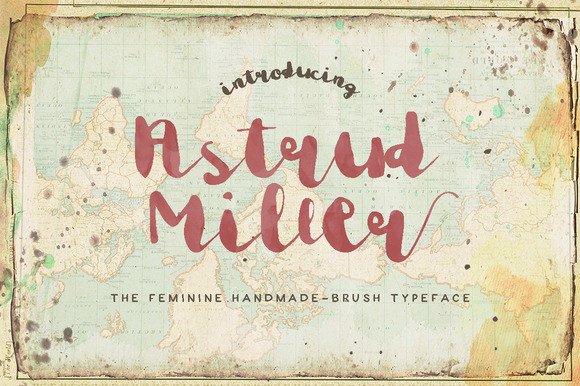
The Quest for the Perfect Font: Discovering Astrud Miller
I still remember the frustration of working on a wedding invitation design project, searching for the perfect font to capture the elegance and playfulness of the occasion. As a designer, I’ve been there – stuck in a font limbo, scrolling through endless options, but none seem to fit the vibe. That’s when I stumbled upon Astrud Miller Font, and my design woes disappeared! ✨
A First Impression: What Makes Astrud Miller Special
Astrud Miller is a feminine brush-type font with a rather bulky and short style. It’s a unique blend of playfulness and sophistication, making it perfect for various design projects. The font comes in both regular and swashes styles, allowing you to mix and match to create stunning visuals for your:
• Wedding invites
• Birthday cards and greetings
• Illustration titles
• Posters
• Return addresses
• Signatures
• Branding work
What I Love About Astrud Miller:
• ✨ Unique and feminine design
• ✅ Both regular and swashes styles for versatility
• 💕 Perfect for wedding and birthday designs
• 🎨 Great for illustration titles and posters
While Astrud Miller is an amazing font, there are a few things to keep in mind: 🤔
• ⚠️ Limited use for very formal or corporate designs
• ⚠️ May not be suitable for very long texts due to its decorative nature
The Story Behind Astrud Miller
Astrud Miller was designed with love and care by a talented font creator who wanted to bring a touch of femininity and whimsy to the world of typography. The font’s name is inspired by the creator’s grandmother, Astrud, who was known for her beautiful handwriting and love of crafting. The font’s design reflects her playful and creative spirit.